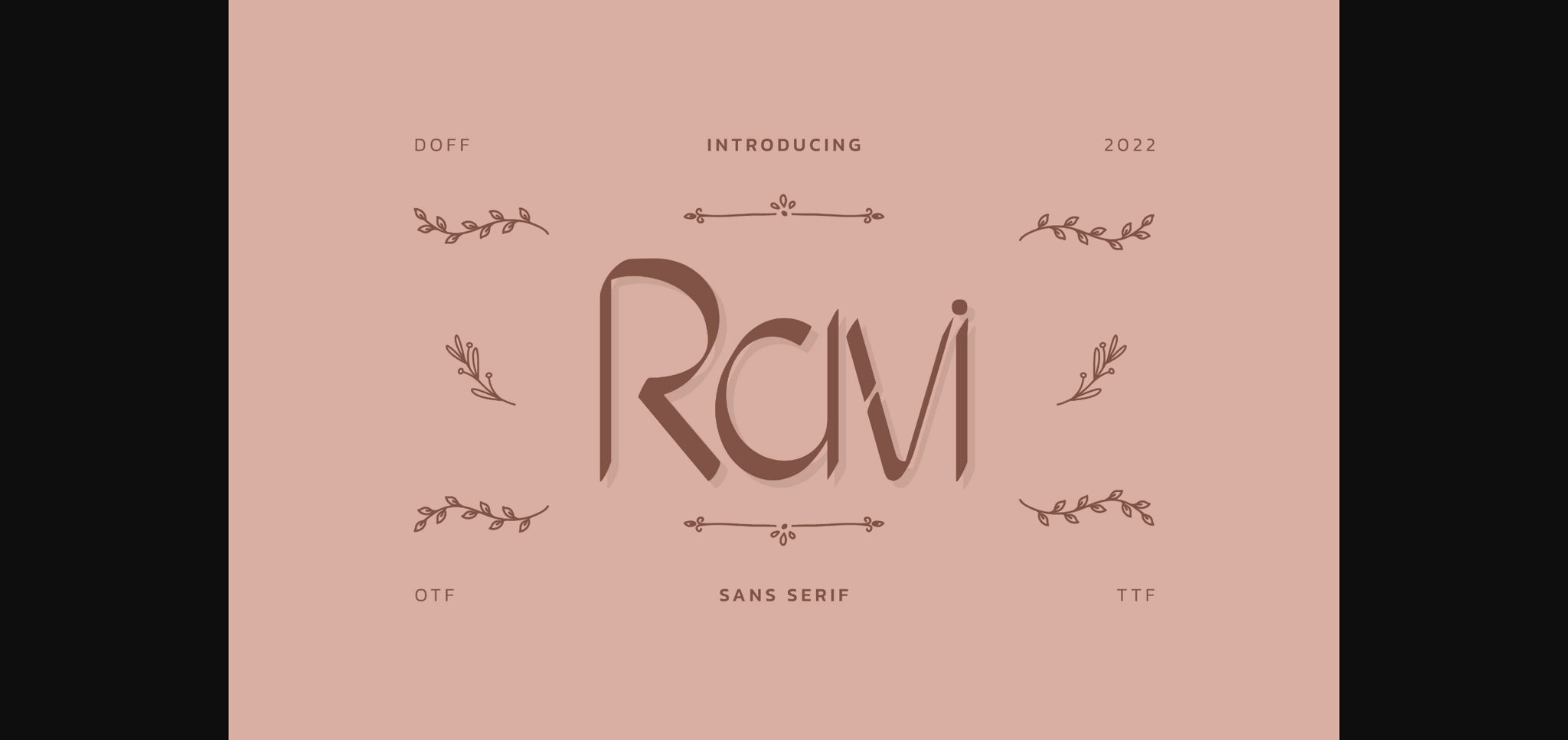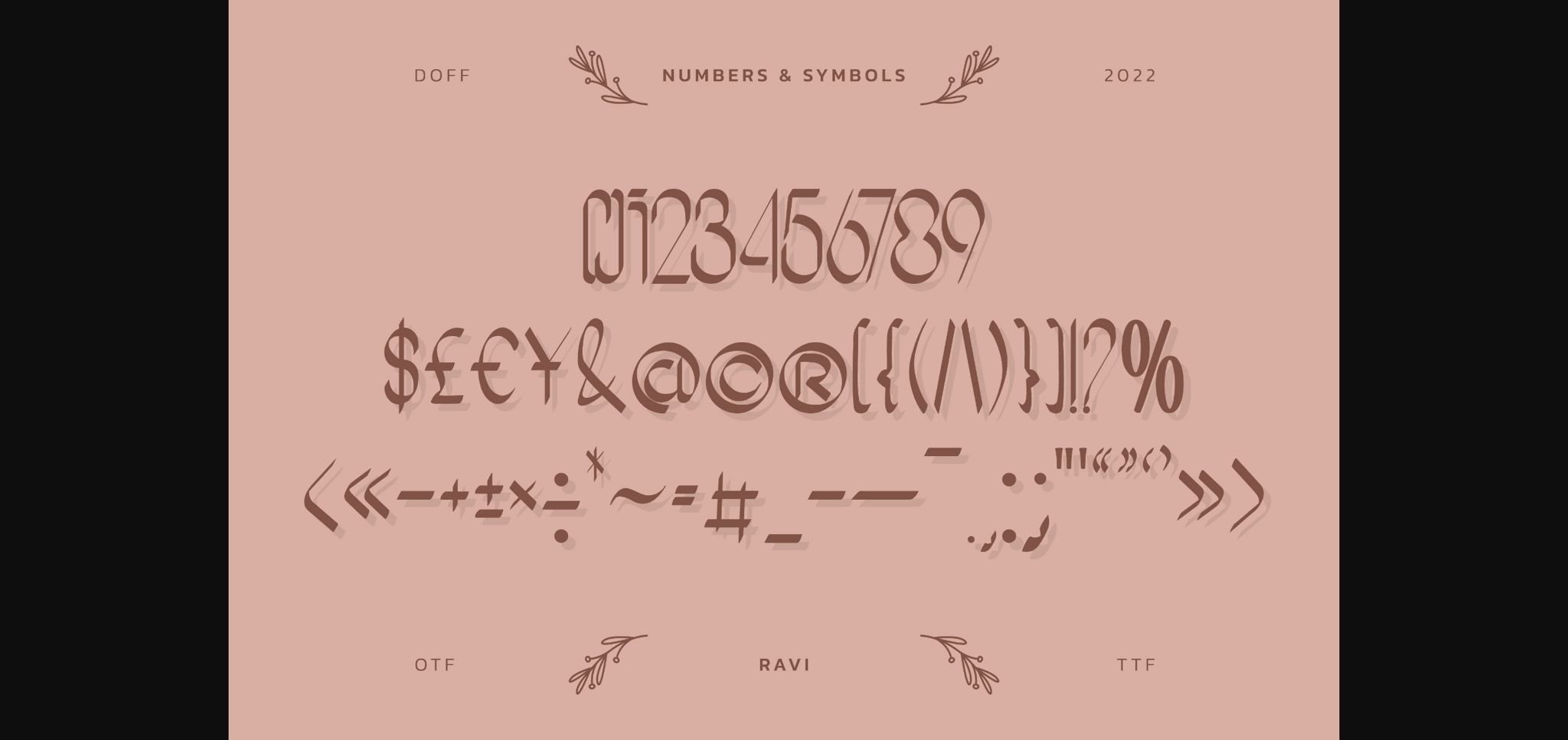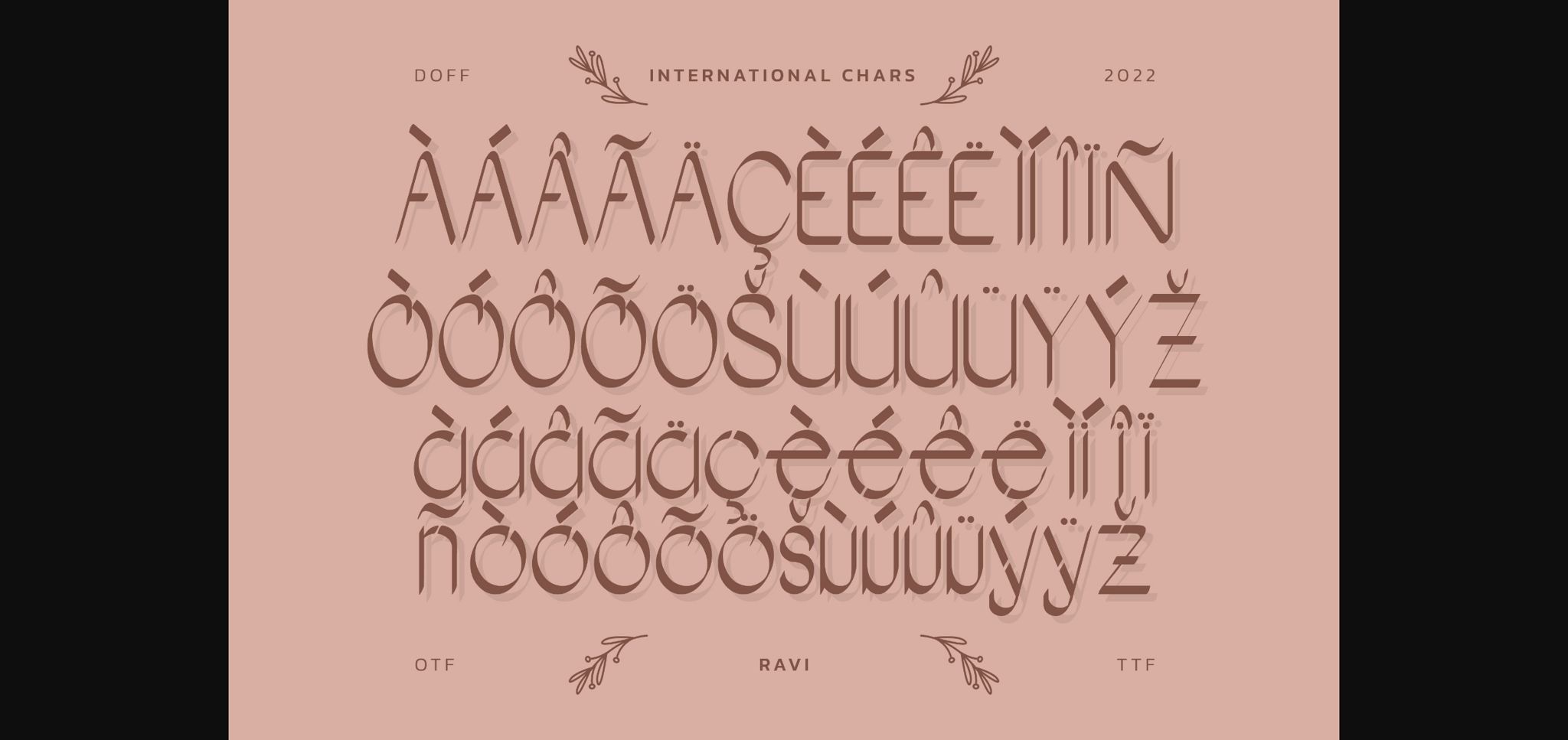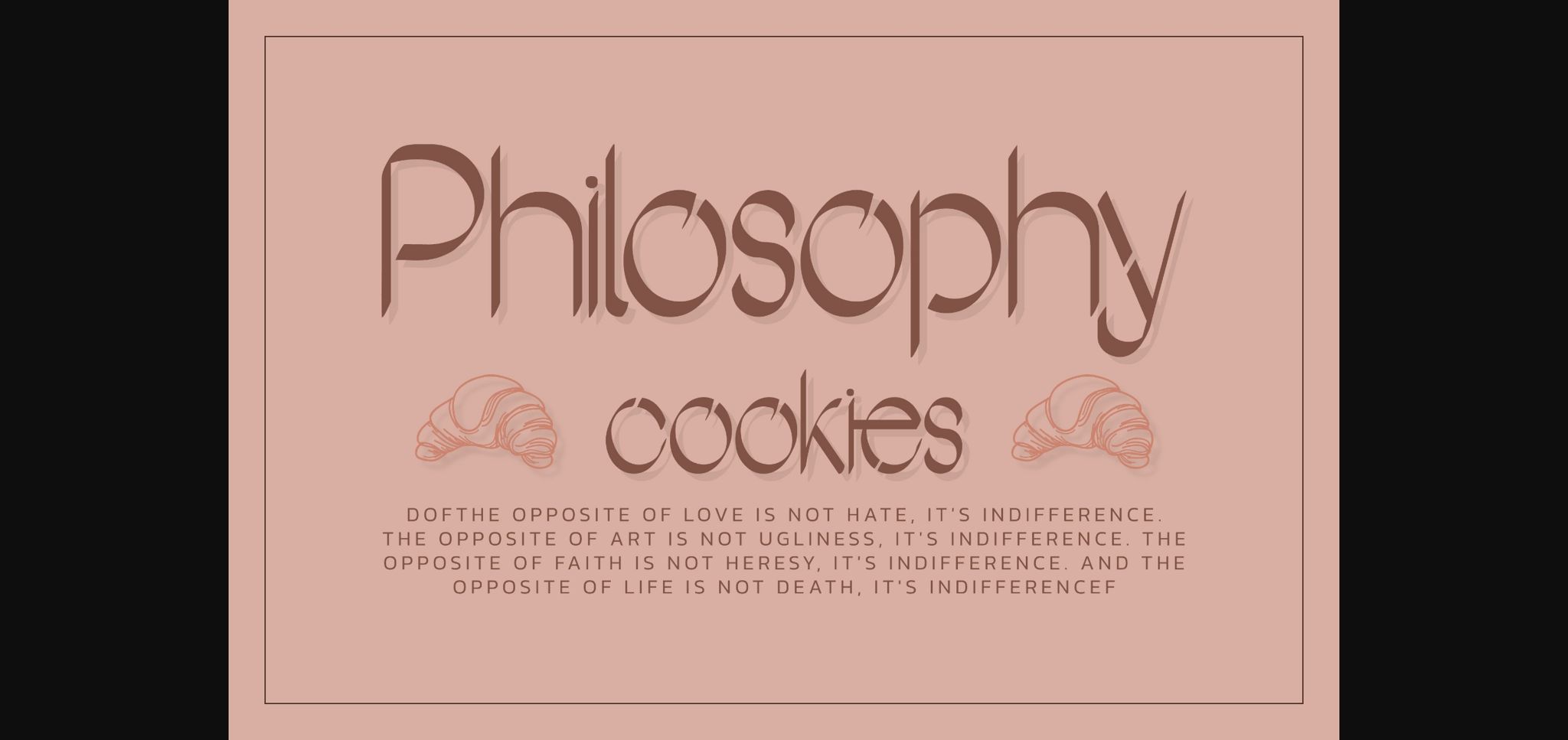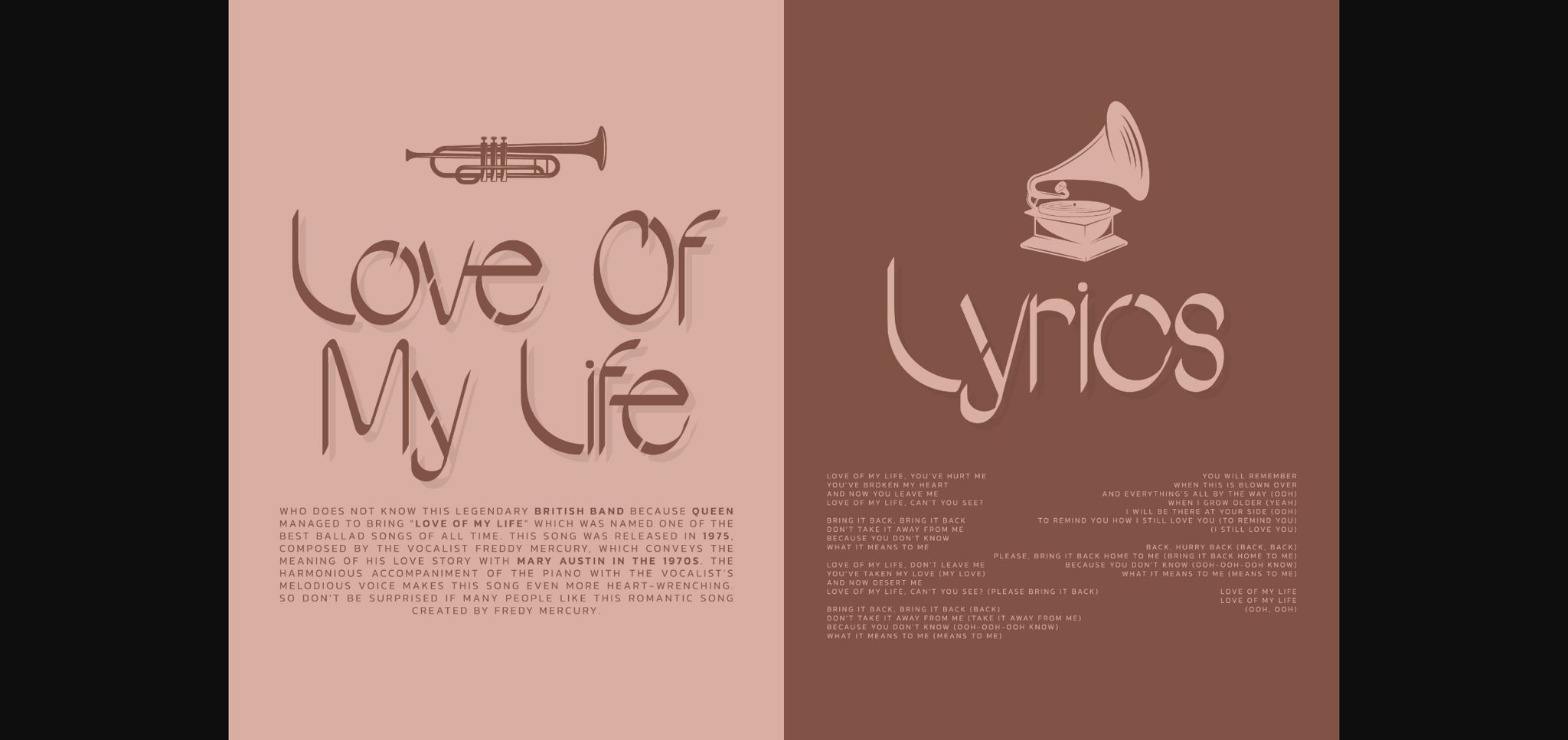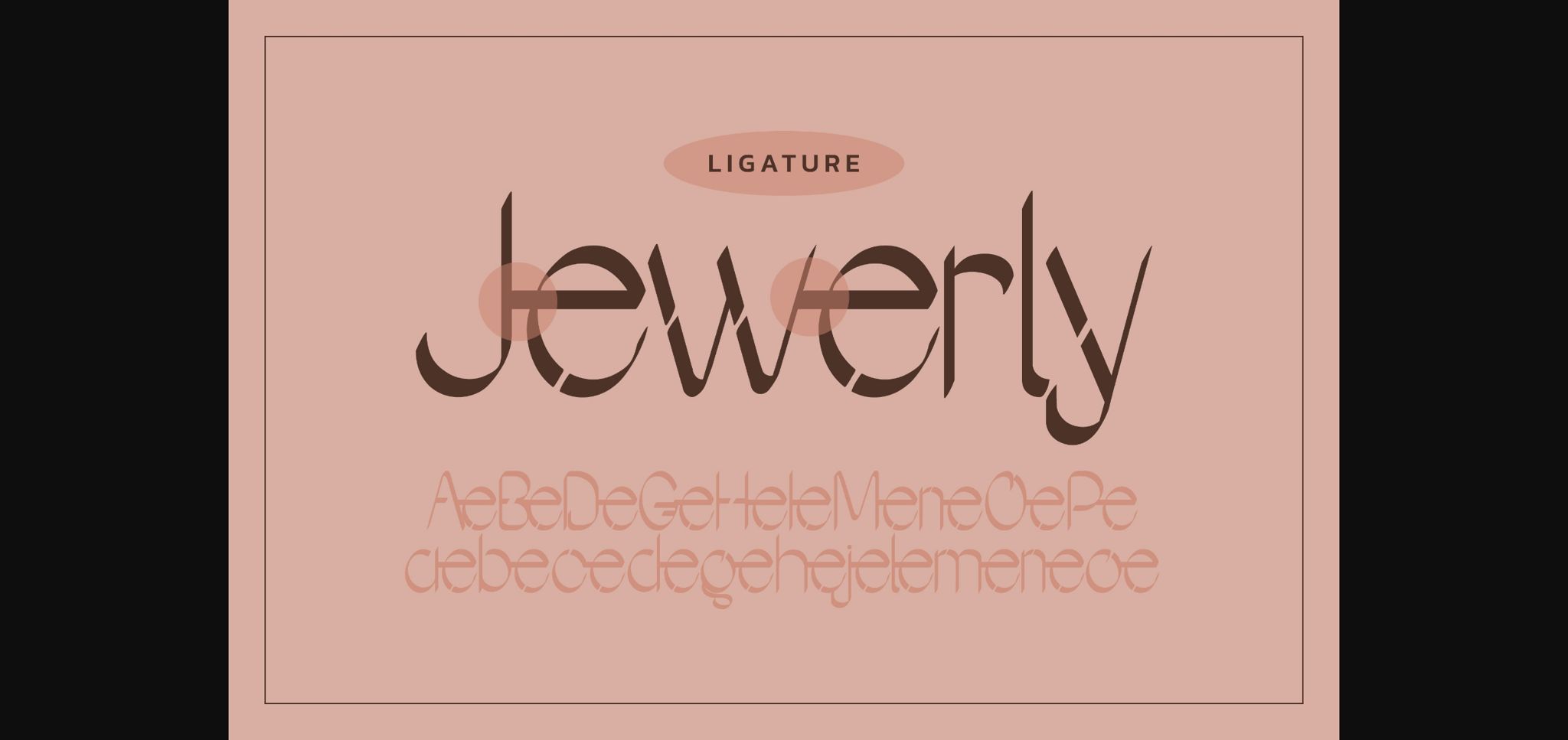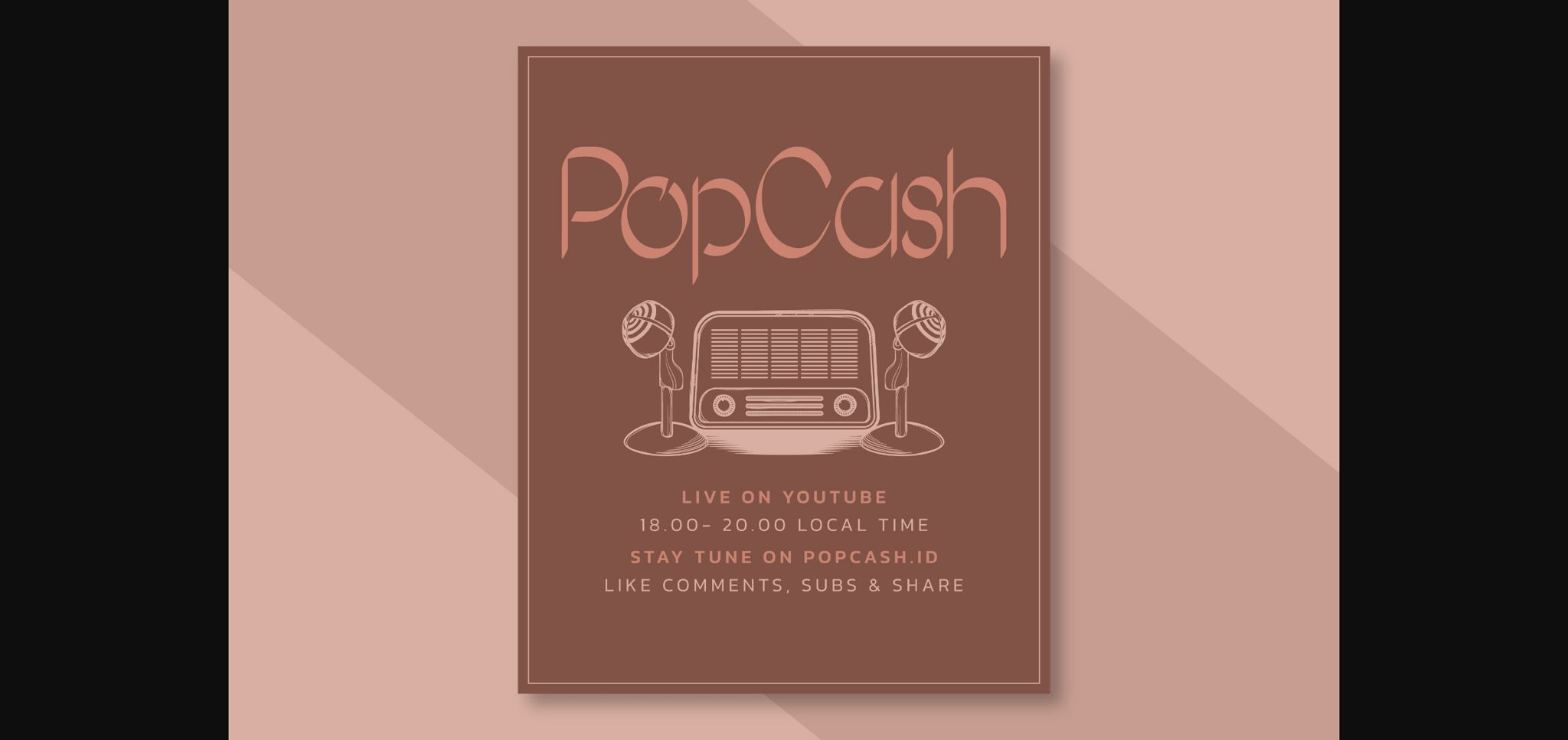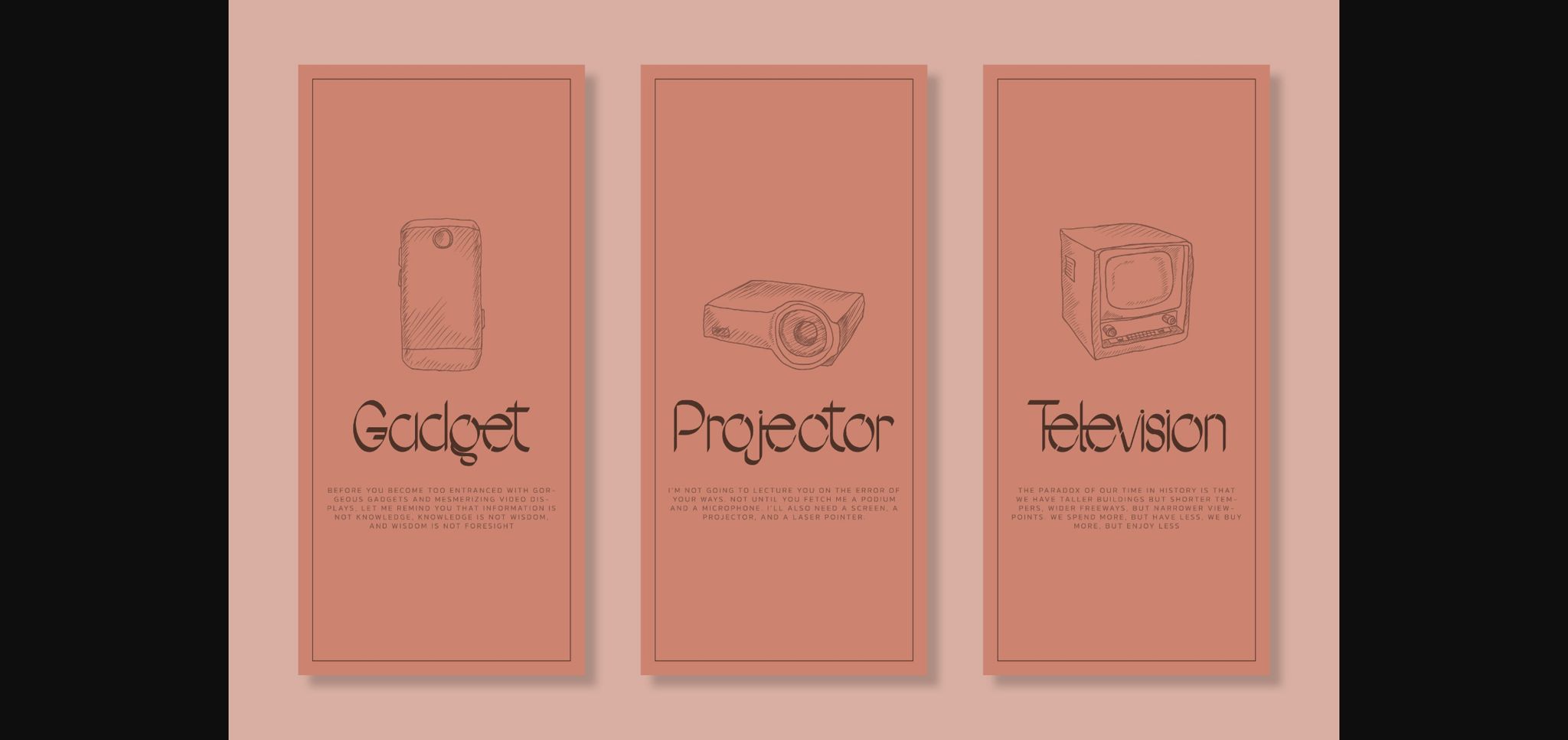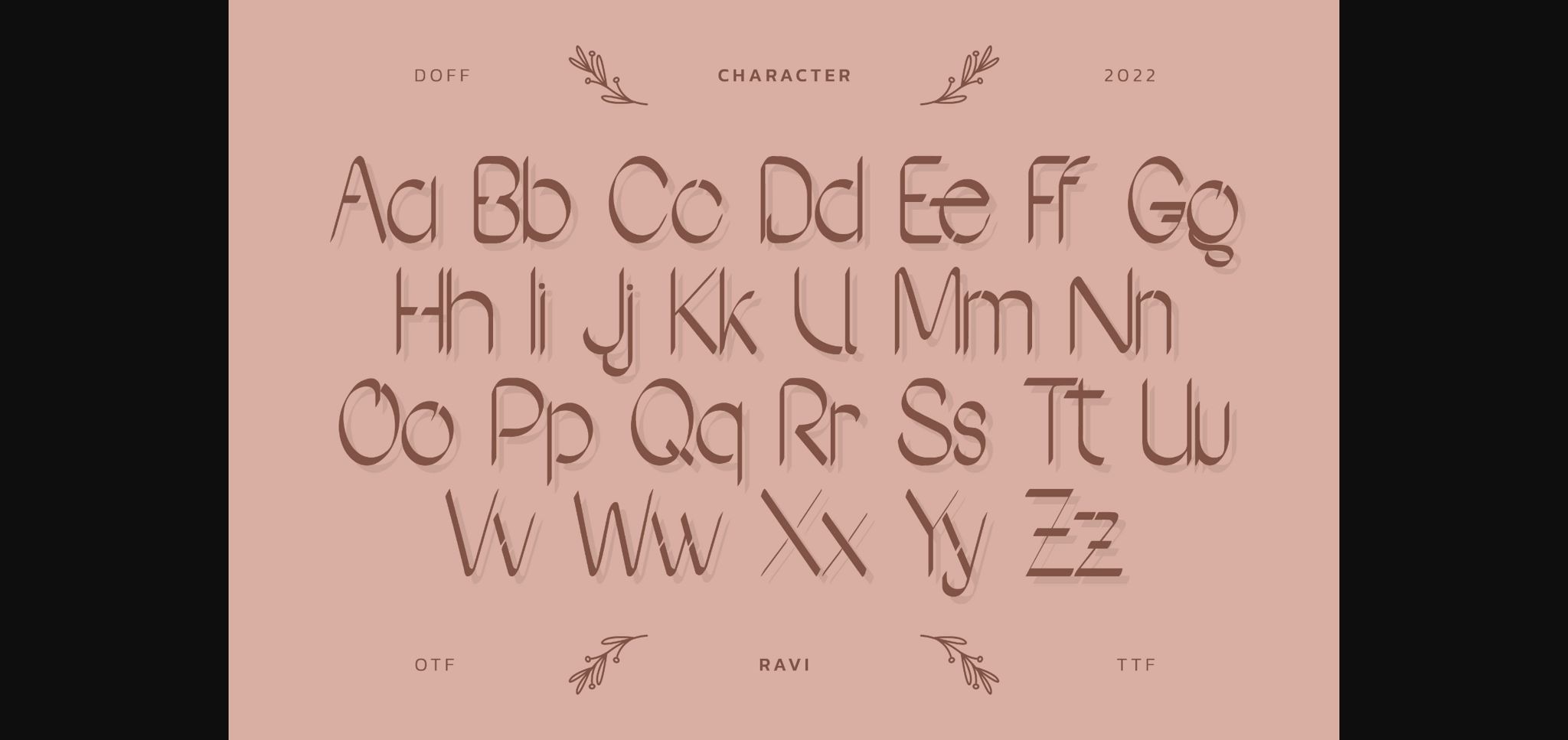
HomeSans Serif FontsRavi Font Sans Serif Fonts Ravi Font FacebookXPinterestWhatsApp 1 of 11 ... Ravi Font Poster 2... Ravi Font Poster 3... Ravi Font Poster 4... Ravi Font Poster 5... Ravi Font Poster 6... Ravi Font Poster 7... Ravi Font Poster 8... Ravi Font Poster 9... Ravi Font Poster 10... Ravi Font Poster 11... About Ravi Font Ravi is a modern and stylish sans serif font that impresses through its natural and elegant style. Add it to your most creative ideas, and notice how it transforms them into authentic pieces of art! DOWNLOAD NOW People also explored Mugend Font Alejandra Font Gohanto Jincuk Font Bluemoon Font Jolie Font Calvin Slab Thanks Ful Font Harmonic Font Ainslie Slab Font 342 0 TagsRaviRavi Font Previous articleMagret FontNext articleMixena Font LEAVE A REPLY Cancel reply Comment: Please enter your comment! Name:* Please enter your name here Email:* You have entered an incorrect email address! Please enter your email address here Website: Save my name, email, and website in this browser for the next time I comment. Personal Use Free Baby Magnolia Personal Use Free Read more about this font Blue Highway Personal Use Free Read more about this font Sybil Green Personal Use Free Read more about this font Austins Personal Use Free Read more about this font BLOG How to Cut Any Font on Cricut: Convert a Font to SVG (Free) Turn any font into a clean SVG so it cuts crisp on Cricut - a quick 3-step workflow using a free font-to-SVG tool. Elegant Wedding Invitation Fonts – Handwritten & Script Fonts Top 10 Handwritten Fonts That Elevate Your Designs How to Install and Use Fonts on Windows, macOS, and Web Projects